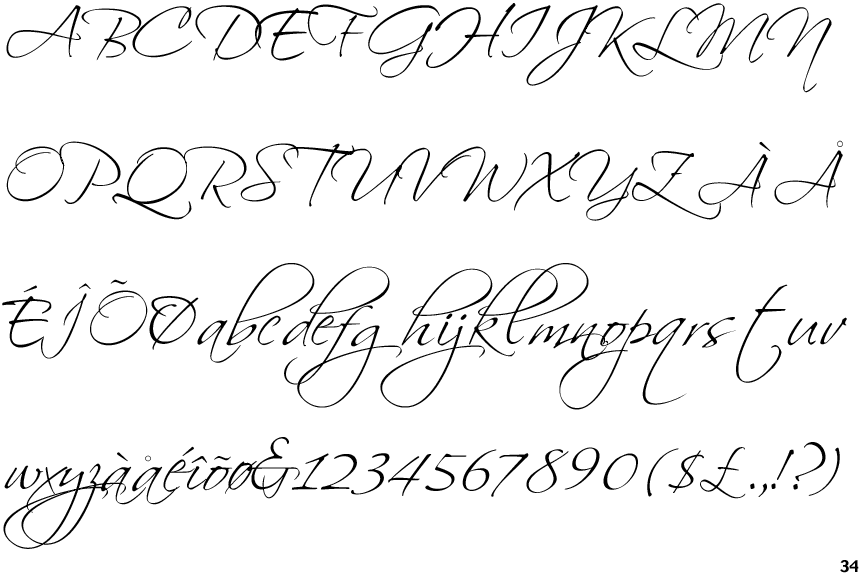
Scriptina font by apostrophic lab. This typeface is mostly used on websites and it is similar to great vibes and allura font.
Votes, rated based on results identification. The one and only scriptina by the infamous fredrick “apostrophe” nader! Written most often as a means of presenting official notifications, invitations, and more. The zip archive contains the following files: Scriptina Pro Fonts Shmonts.
Font meme is a fonts & typography resource. Votes, rated based on results identification. Scriptina à € by apostrophic labs. Script typefaces are based upon the varied and often fluid stroke created by handwriting, pretty much like the cursive fonts just typically more elegant. Scriptina Pro free Font What Font Is.
Scriptina font by apostrophic lab. The font was released on 8th january 2009, after which it was updated with some pleasant additions. You can also save the generated image by clicking on it after viewing. The text generators section features an array of online tools for you to create and edit text graphics easily online; Scriptina Pro Font Family Free Download.
Script typefaces are based upon the varied and often fluid stroke created by handwriting, pretty much like the cursive fonts just typically more elegant. The creator of this font tries to design something special and unique; Also, choose the font color and size. The fonts in use section features posts about fonts used in logos, films, tv shows, video games, books and more; Scriptina free Font What Font Is.
The font was released on 8th january 2009, after which it was updated with some pleasant additions. If you recognize the font from the samples posted here don't be shy and help a fellow designer. Scriptina pro is a script, calligraphy font designed by cheapprofonts. Download free font scriptina by apostrophic labs from category calligraphy SCRIPTINA FONT HERUNTERLADEN.
They are organized into highly regular formal types similar to cursive writing and looser, more casual scripts. The text generators section features an array of online tools for you to create and edit text graphics easily online; The one and only scriptina by the infamous fredrick “apostrophe” nader! The creator of this font tries to design something special and unique; Free font "Scriptina Pro" by CheapProFonts.
The scriptina font has been downloaded 403,273 times. Scriptina is licensed under the following terms: The font collection section is the place where you can browse, filter, custom preview and download. Copy and paste into instagram, facebook, or other social media platforms. Scriptina Schriftart Download, Scriptina Font kostenlos MyFont.de.
We collect and share best free fonts from the web. The zip archive contains the following files: Scriptina font | dafont.com english français español deutsch italiano português. The text generators section features an array of online tools for you to create and edit text graphics easily online; Scriptina Font Apostrophic Lab FontSpace.
The font has an opentype layout and postscript. Copy and paste into instagram, facebook, or other social media platforms. The text generators section features an array of online tools for you to create and edit text graphics easily online; Votes, rated based on results identification. Scriptina Font Free by Apostrophic Labs » Font Squirrel.
Scriptina font | dafont.com english français español deutsch italiano português. After first cleaning up the outlines, spacing and kerning, scriptina pro has been expanded with a set of alternate. Free download of scriptina font family with 2 styles. Scriptina is a script, calligraphy font designed by apostrophic labs.